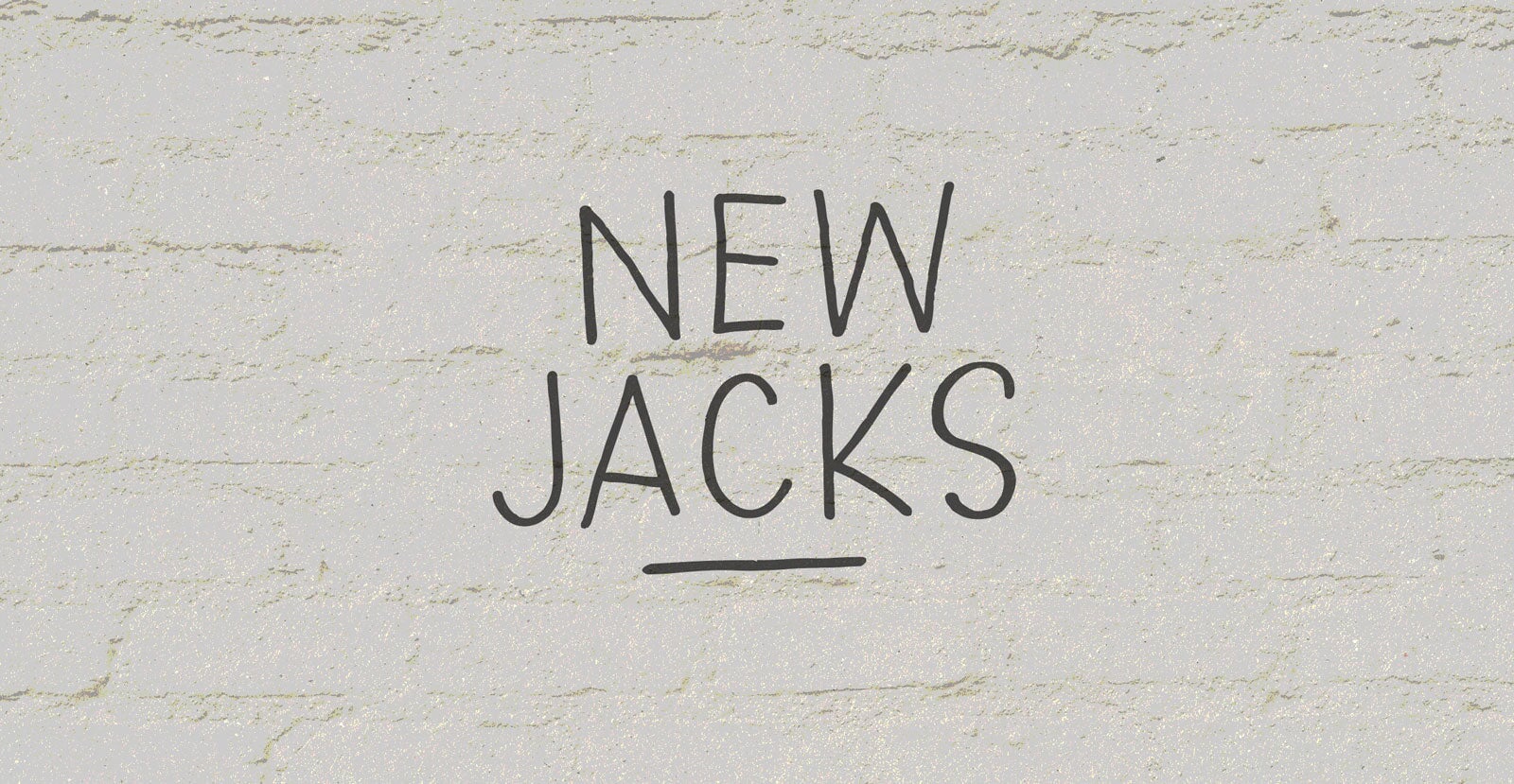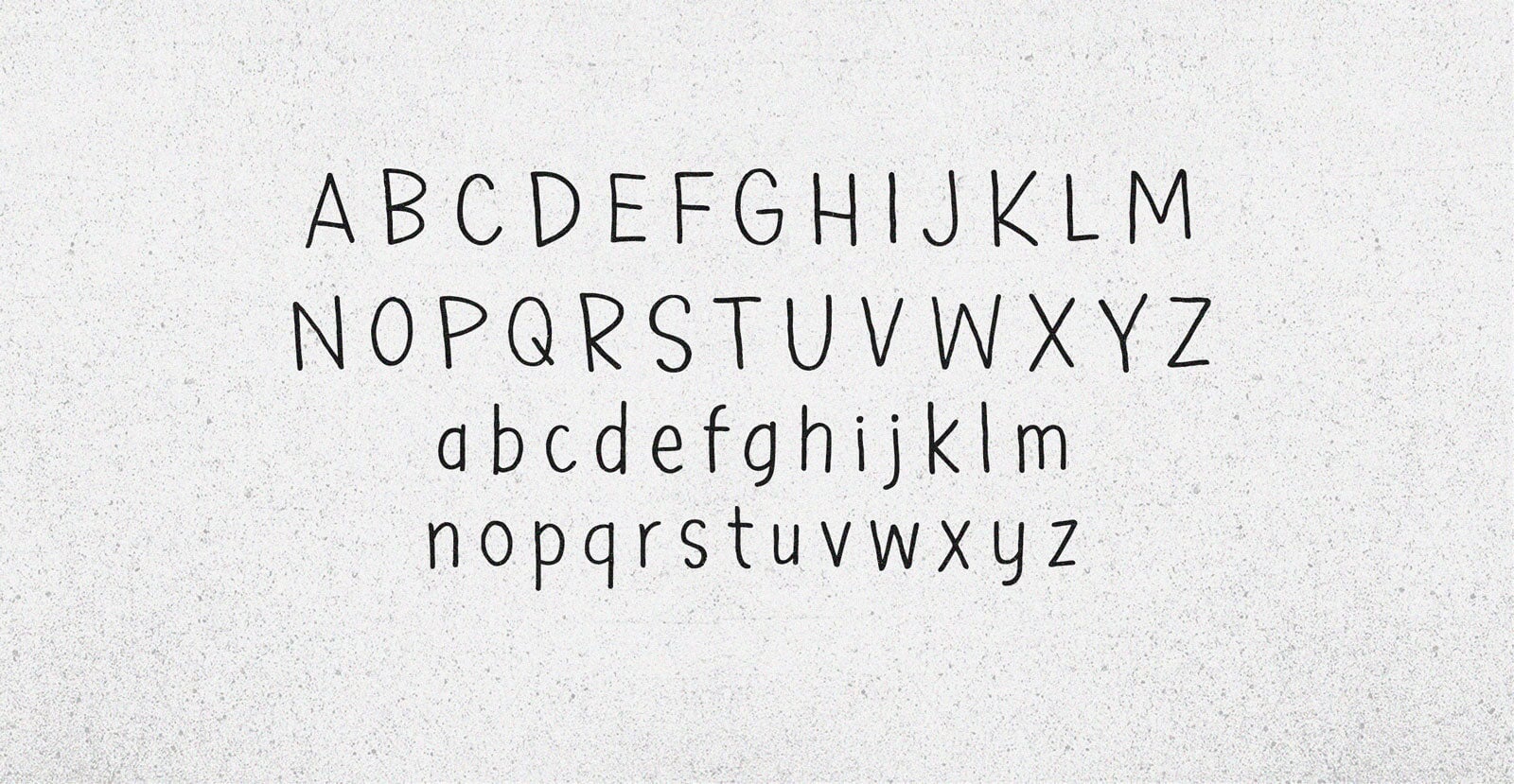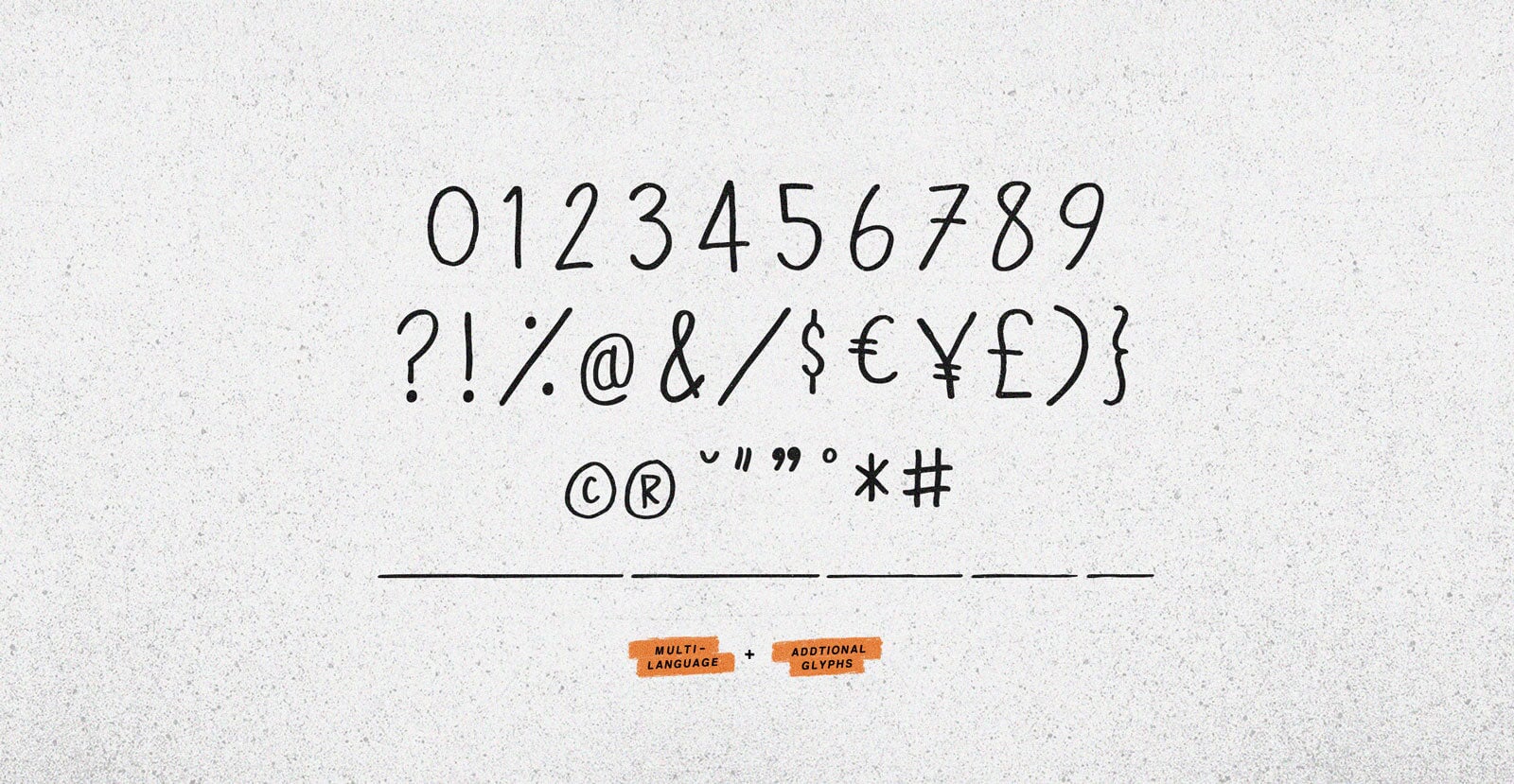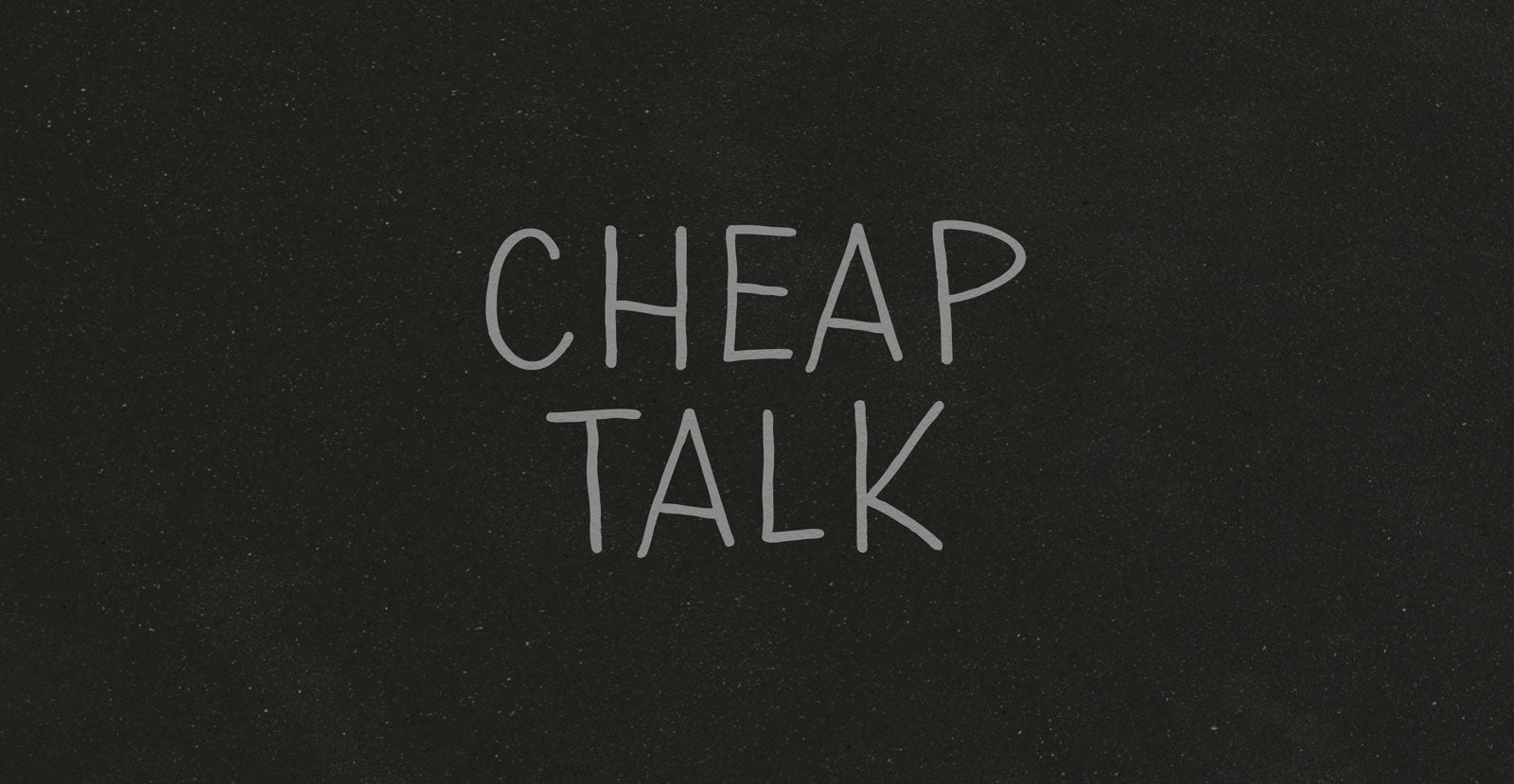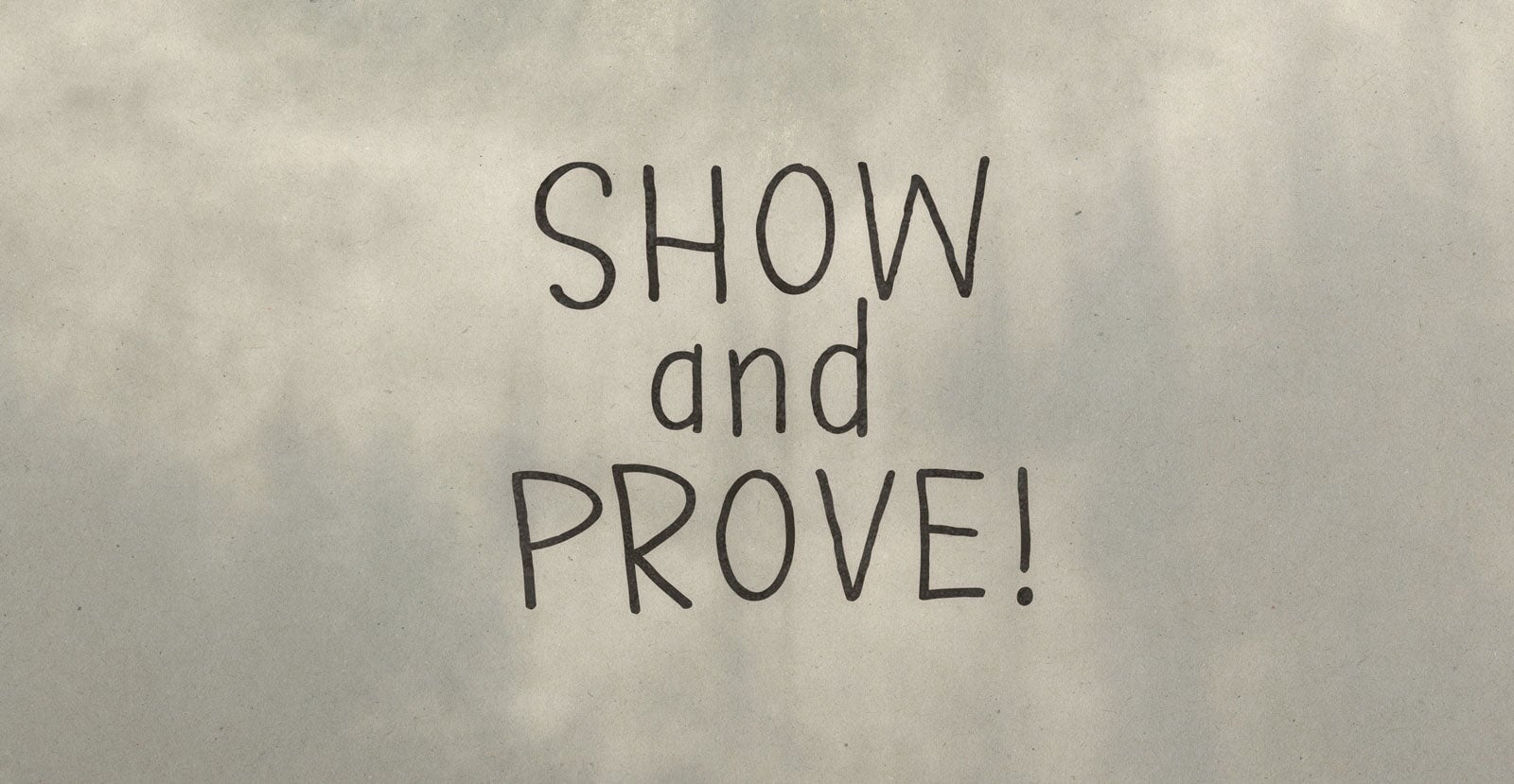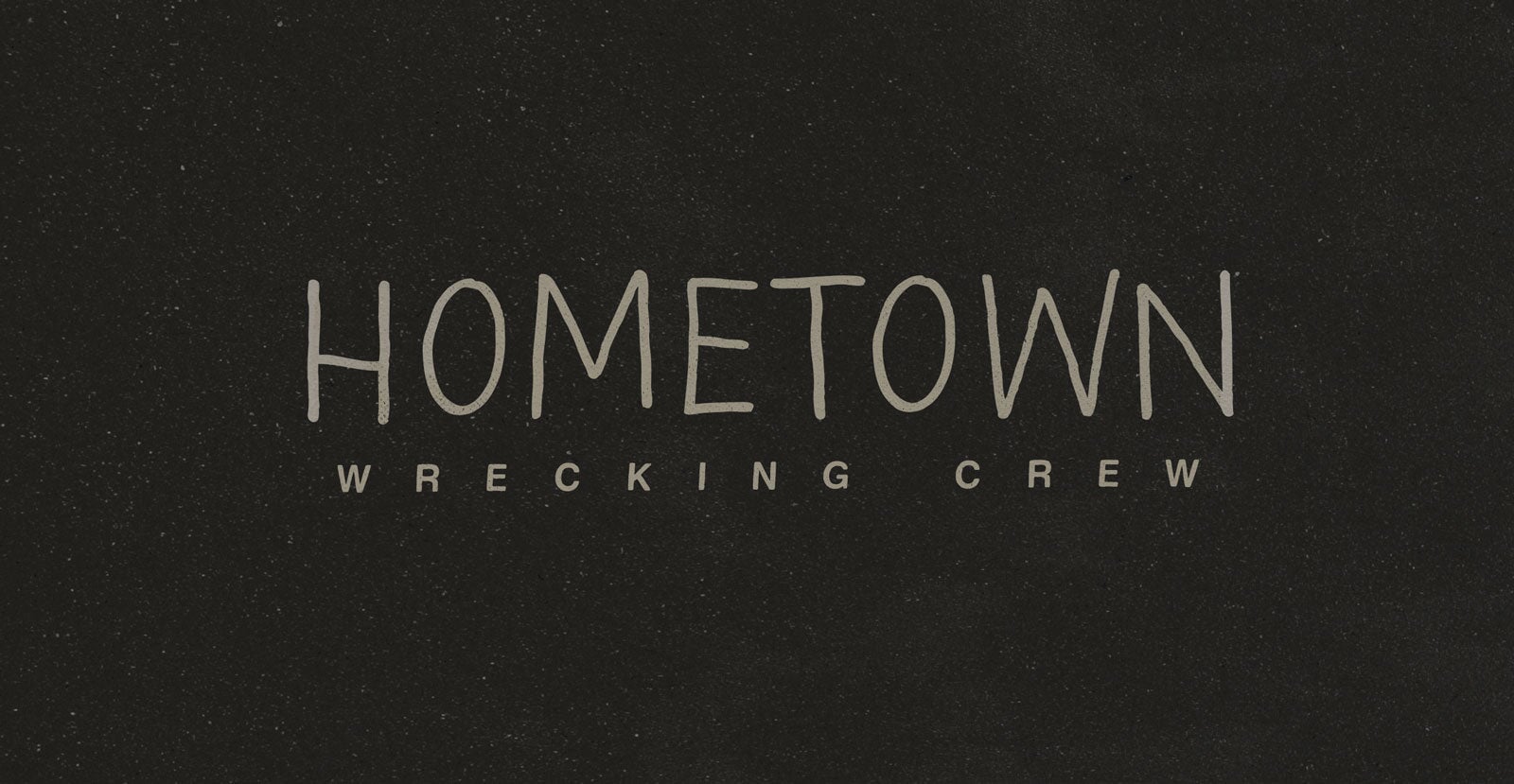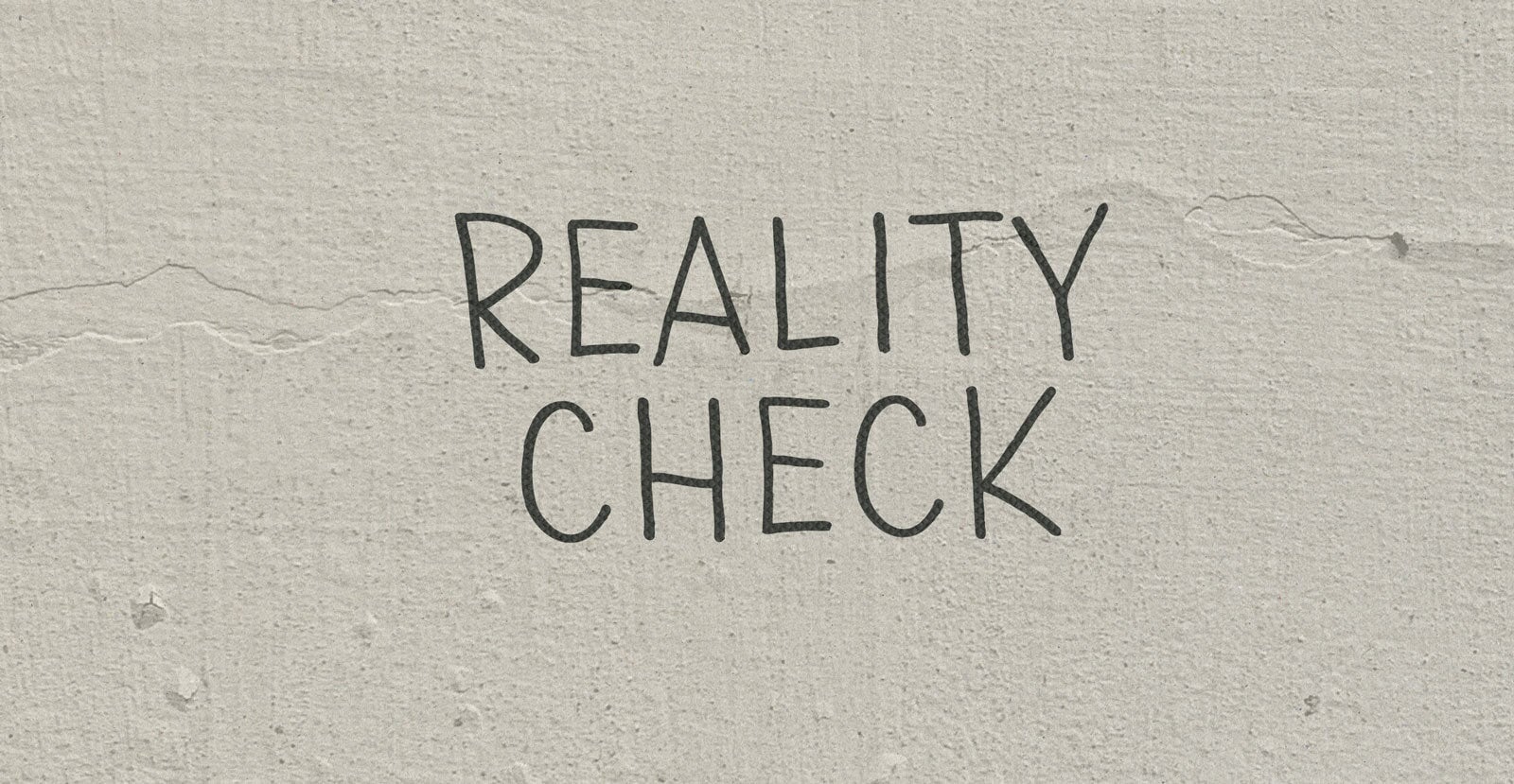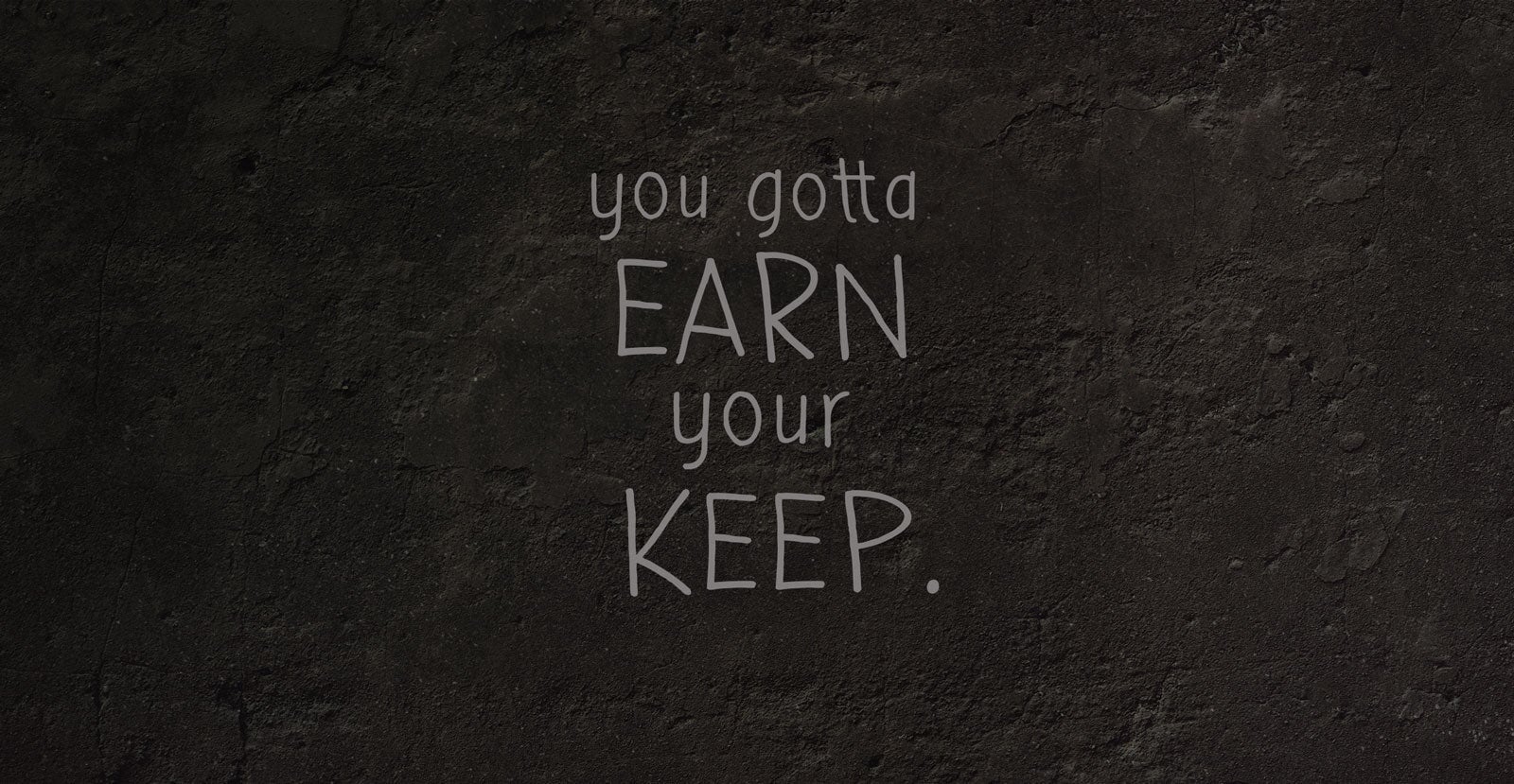
New Jacks
Handwritten Sans Serif Font
New Jacks hit the city like small-town girls, hopped up on getting out, high on moving up. Everything for everything, it isn’t even all that old when they swing it, so that refractory-fresh, new-to-you smell remains all the same.
• Underlines